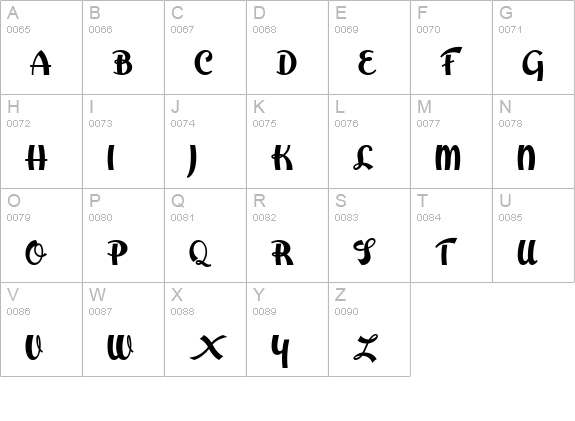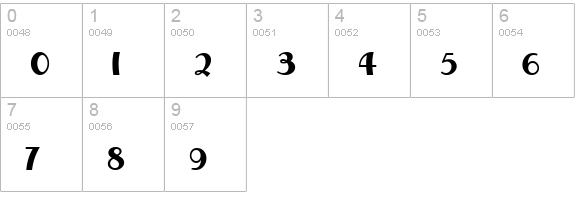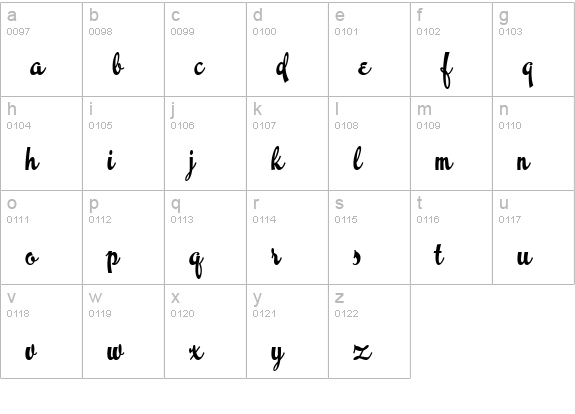
Thai Foon HB is a stunning and elegant font that will add a touch of sophistication to any design project. With its unique blend of classic Thai script and modern contemporary style, this font is perfect for creating eye-catching logos, branding materials, invitations, and more. The beauty of Thai Foon HB lies in its intricate details and graceful curves, which give each character a sense of fluidity and movement. The carefully crafted letterforms are a testament to the skill and artistry of the font designer, making it a true work of art. One of the best things about Thai Foon HB is that it is freely available to download at FontsMarket.com. This means that you can use this beautiful font in your designs without having to worry about any licensing restrictions or fees. Whether you are a professional designer or a hobbyist, Thai Foon HB is a great addition to your font collection. The versatility of Thai Foon HB is another reason why it is a must-have font. It can be used in a variety of design projects, from branding and packaging to website design and social media graphics. The clean and legible letterforms ensure that your message is communicated clearly, while the unique Thai script adds a touch of cultural richness and authenticity. Whether you are designing for print or digital, Thai Foon HB is a font that will make your work stand out from the crowd. Its timeless elegance and versatility make it suitable for a wide range of design styles, from traditional to modern. So why wait? Download Thai Foon HB for free at FontsMarket.com and start incorporating this beautiful font into your designs today. Elevate your creations to a whole new level of sophistication and style with this stunning font.